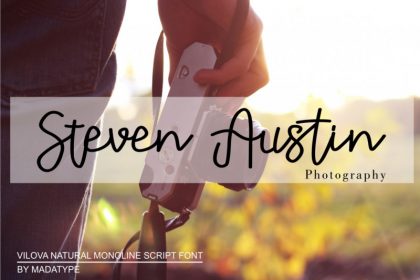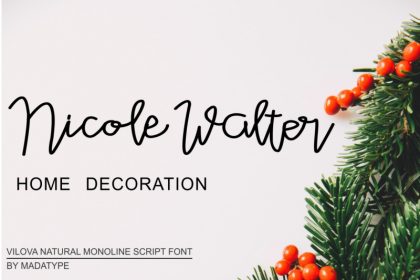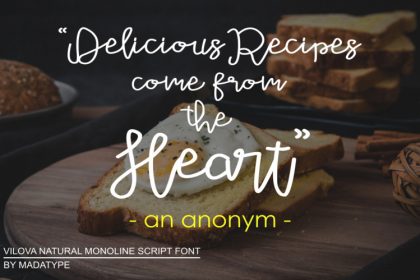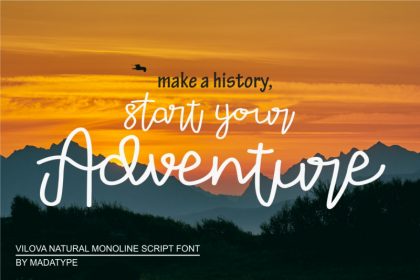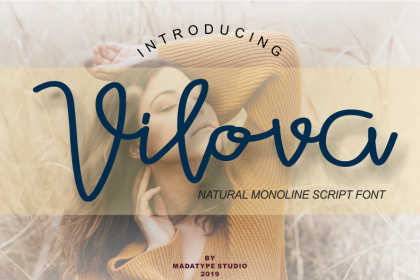
Vilova Script Font
Vilova is a monoline hand-written font which turns your design into a stand out result. You can contact me if you need a extended licence for your commercial purposes. Feel free to check my other products on my store.